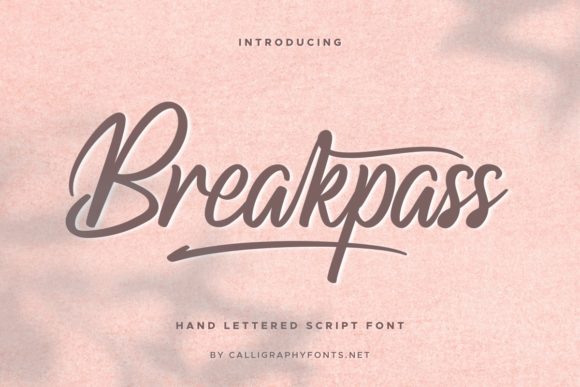
The Breakpass Font: A Timeless Handwritten Treasure
I’ll never forget the time I was working on a wedding invitation project, and my client asked for a font that was “elegant, yet playful.” I scoured the internet, tried out dozens of fonts, but nothing seemed quite right. That was until I stumbled upon the Breakpass font. It was like a breath of fresh air – delicate, yet distinctive, and perfect for adding a touch of whimsy to the design. In this article, I’ll share my love for the Breakpass font, its features, and how to make the most of it in your designs.
• ✨ The Breakpass font is incredibly versatile, making it perfect for a wide range of design projects, from wedding invitations to business cards.
• ✅ Its delicate, handwritten feel adds a touch of elegance and sophistication to any design.
• 💕 The font’s timeless quality ensures it won’t go out of style anytime soon.
While the Breakpass font is amazing, there are a few things to keep in mind:
• ⚠️ The font can be a bit finicky when it comes to kerning, so be sure to adjust it carefully to get the best results.
• 🤔 Some of the more intricate glyphs can be a bit tricky to read at smaller sizes.
The Story Behind Breakpass
The Breakpass font was designed by a talented type designer who wanted to create a font that was both elegant and playful. Inspired by the beauty of handwritten script, the designer carefully crafted each letter to ensure that the font was both legible and stylish. The result is a font that’s perfect for adding a touch of whimsy to any design.
Q: What is the Breakpass font best used for?
A: The Breakpass font is perfect for designs that need a touch of elegance and whimsy, such as wedding invitations, thank you cards, quotes, and greeting cards.
Q: Is the Breakpass font suitable for body text?
A: While the Breakpass font is beautiful, it’s best used for headings and titles. For body text, a clearer font would be more suitable.
Q: Is the Breakpass font available in different styles?
A: The Breakpass font comes in a range of styles, including regular, italic, and bold. Be sure to check the font package for the full range of styles.